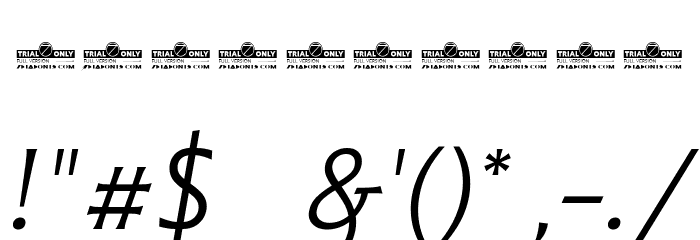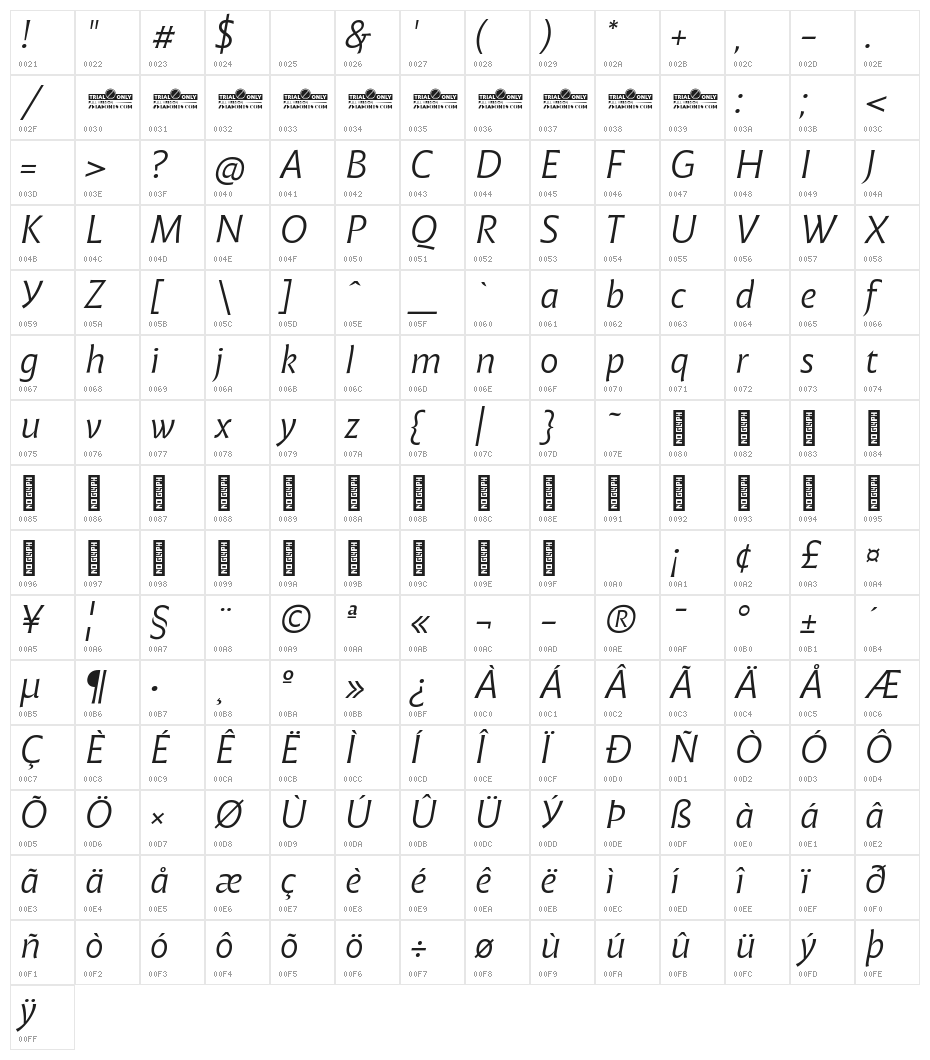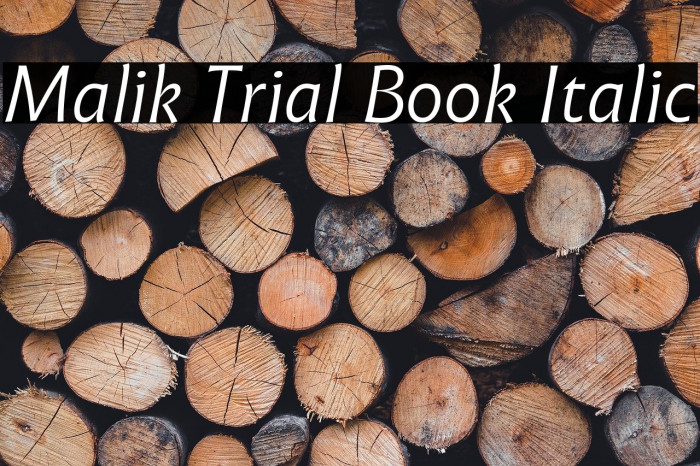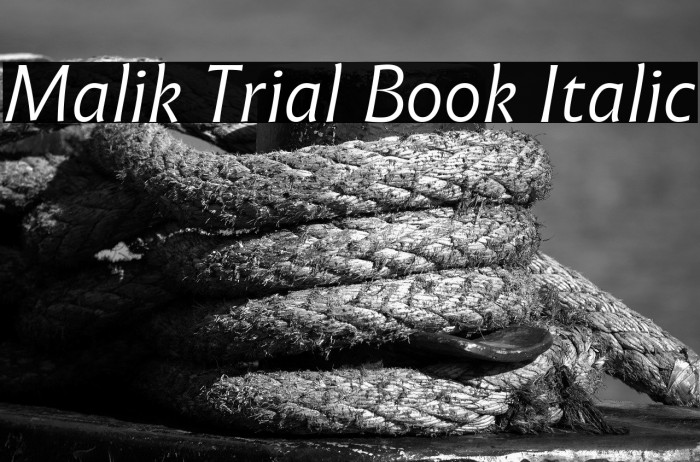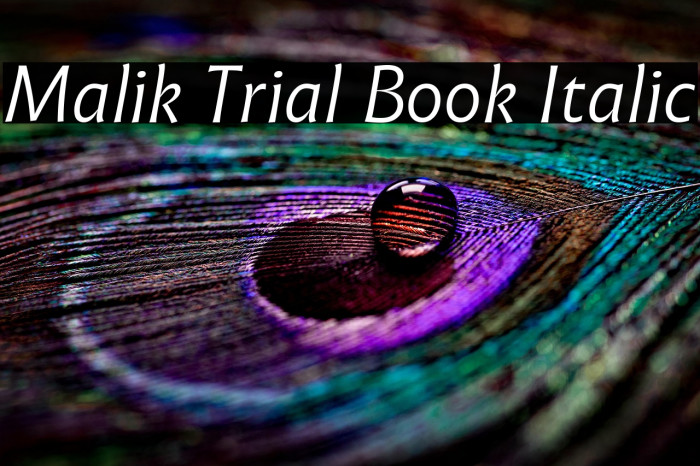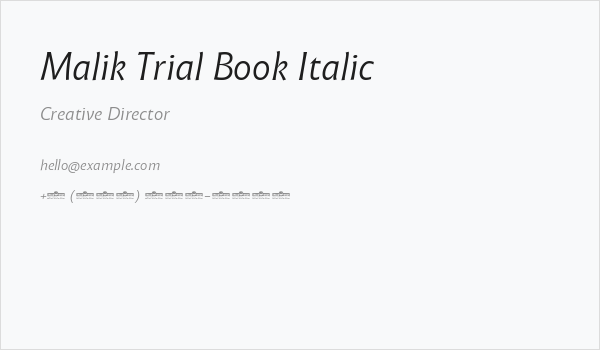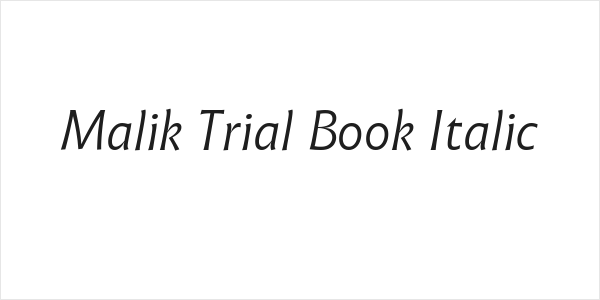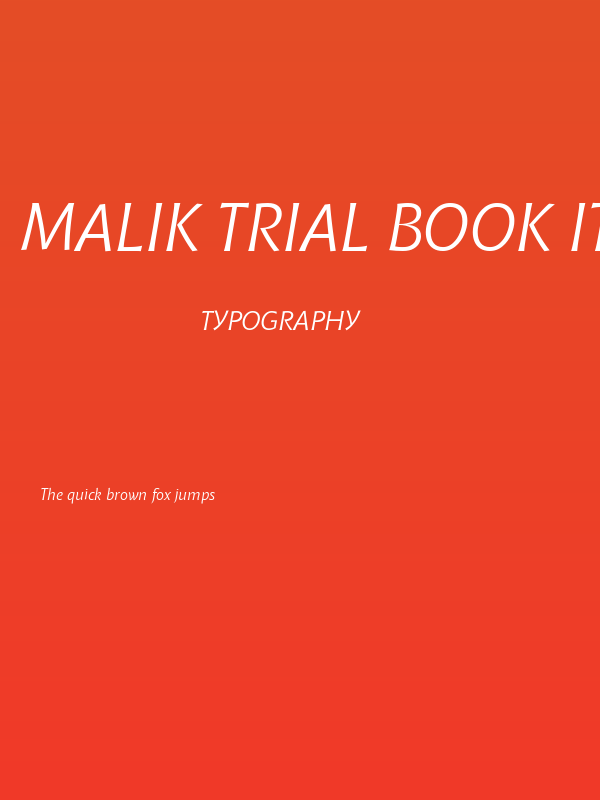
Malik Trial Book Italic Font
Malik Trial Book Italic Description
This font features a sleek and elegant italic style, characterized by its smooth curves and slightly slanted letters. The uppercase letters maintain a consistent height, while the lowercase letters exhibit a harmonious flow, enhancing readability. The numerals are clear and distinct, matching the overall aesthetic of the font. Special characters are well-integrated, providing versatility for various uses. The font's design is modern yet timeless, making it suitable for a wide range of applications.